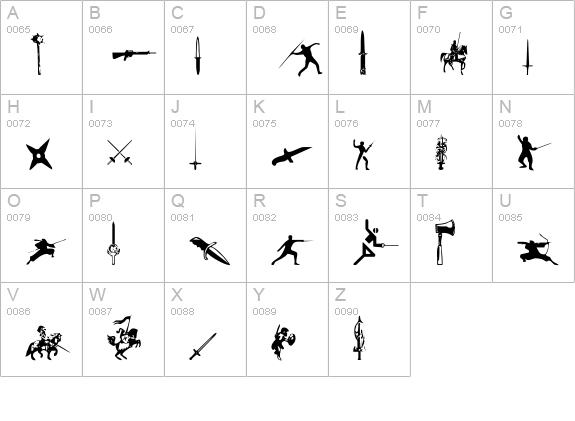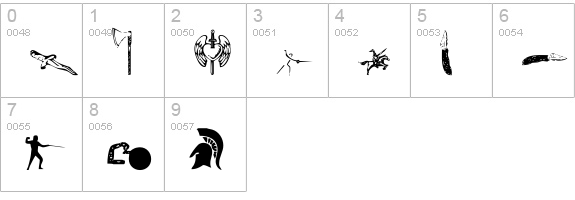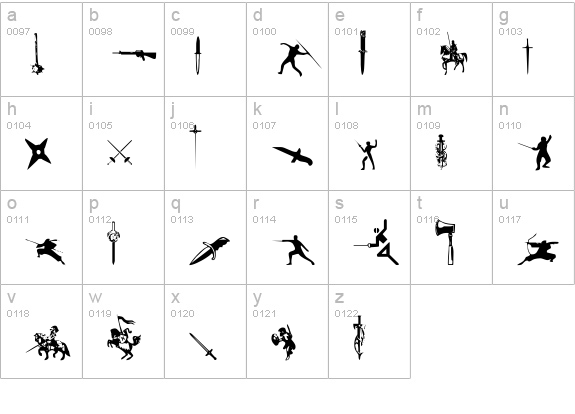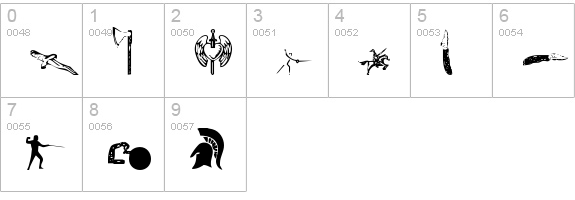
Gods of War Font Details
The Gods of War font is a bold and powerful typeface that exudes strength and dominance. Its sharp edges and intricate details make it perfect for projects that require a strong and impactful design. Whether you want to create eye-catching headlines, powerful titles, or striking logos, the Gods of War font will make a bold statement. What's even better is that this impressive font is available for free download at FontsMarket.com. You can add this dynamic typeface to your collection without any cost, making it a valuable resource for designers and creatives looking to make a bold statement in their projects. Don't miss out on the opportunity to elevate your designs with the Gods of War font, now freely available for download.